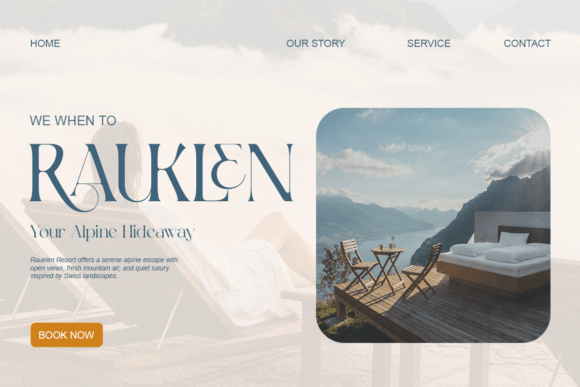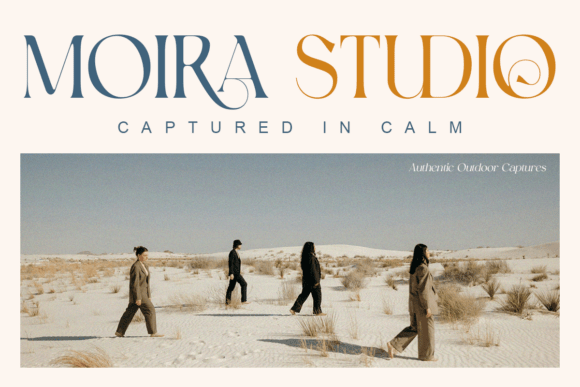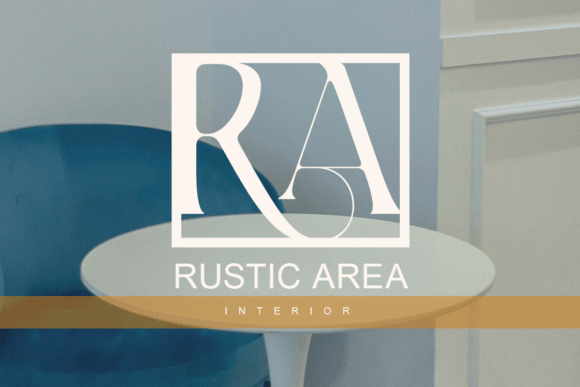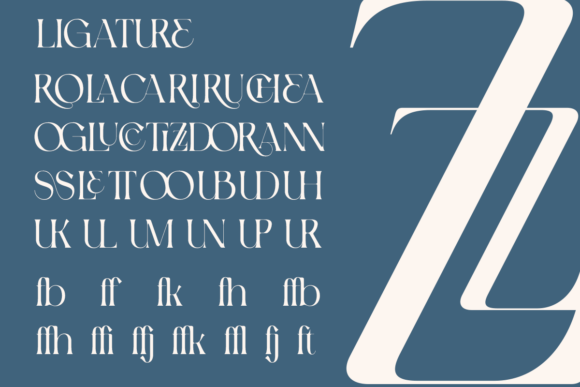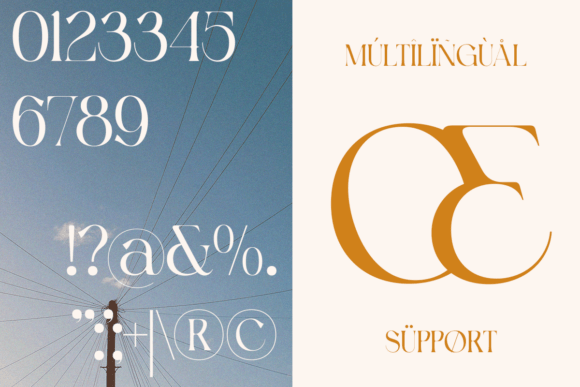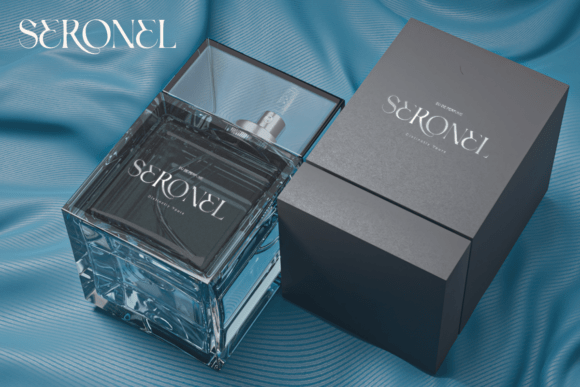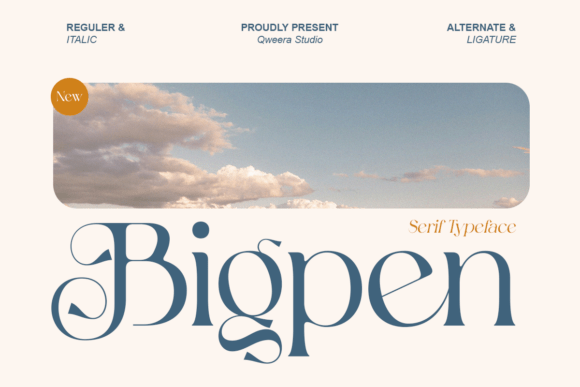
Introducing Bigpen Font: Elevate Your Design with Elegance and Sophistication
In the world of typography, fonts play a crucial role in conveying the tone and personality of a brand. For designers and crafters seeking to create stylish and luxurious visual identities, Bigpen Font is an exceptional choice. This modern, elegant swash serif typeface is specifically designed for high-end branding and editorial layouts, offering a refined and sophisticated aesthetic.
The Characteristics of Bigpen Font
Bigpen Font boasts smooth curves and decorative terminals, which collectively contribute to its distinct luxury appeal. The swash serif design adds a touch of elegance, making it perfect for a variety of applications, including logos, fashion branding, packaging design, and boutique identity systems. Its unique blend of classic and modern elements ensures that Bigpen Font stands out in any design.
Key Features of Bigpen Font
• Swash Alternates: Bigpen Font features swash alternates that provide designers with the flexibility to create unique and creative typography. These alternates allow for a high degree of customization, enabling designers to tailor the font to their specific needs.
• Ligatures: In addition to swash alternates, Bigpen Font also includes ligatures, which further enhance its typographic flexibility. Ligatures enable designers to create flowing, connected text that adds to the overall elegance of the design.
• Modern Clarity: Despite its elegant and luxurious appearance, Bigpen Font maintains modern clarity, ensuring that it remains legible and readable across various applications.
Applications of Bigpen Font
Bigpen Font’s versatility makes it suitable for a wide range of design applications. Some of the most notable uses include:
• Logos: The font’s elegant and sophisticated design makes it an excellent choice for logos, particularly those in the luxury and fashion sectors.
• Fashion Branding: Bigpen Font’s luxury appeal and modern clarity make it perfect for fashion branding, enabling designers to create high-end visual identities that exude style and sophistication.
• Packaging Design: The font’s unique blend of classic and modern elements makes it an excellent choice for packaging design, adding a touch of elegance to any product.
• Boutique Identity Systems: Bigpen Font is also well-suited for boutique identity systems, providing a refined and sophisticated aesthetic that aligns with high-end brand identities.
Why Choose Bigpen Font?
With the abundance of fonts available, designers and crafters may wonder why Bigpen Font stands out. Here are a few reasons why:
• Unique Design: Bigpen Font’s swash serif design and decorative terminals make it a unique and distinctive font that sets it apart from more traditional typefaces.
• Flexibility: The font’s swash alternates and ligatures provide a high degree of flexibility, enabling designers to create customized typography that meets their specific needs.
• Luxury Appeal: Bigpen Font’s elegant and sophisticated design makes it perfect for high-end branding and editorial layouts, adding a touch of luxury to any design.
Bigpen Font is an exceptional choice for designers and crafters seeking to create stylish and luxurious visual identities. Its unique blend of classic and modern elements, combined with its swash alternates and ligatures, make it a versatile and elegant font suitable for a wide range of design applications. Whether you’re creating logos, fashion branding, packaging design, or boutique identity systems, Bigpen Font is sure to elevate your design with its refined typography and luxury appeal.